rampersand mark
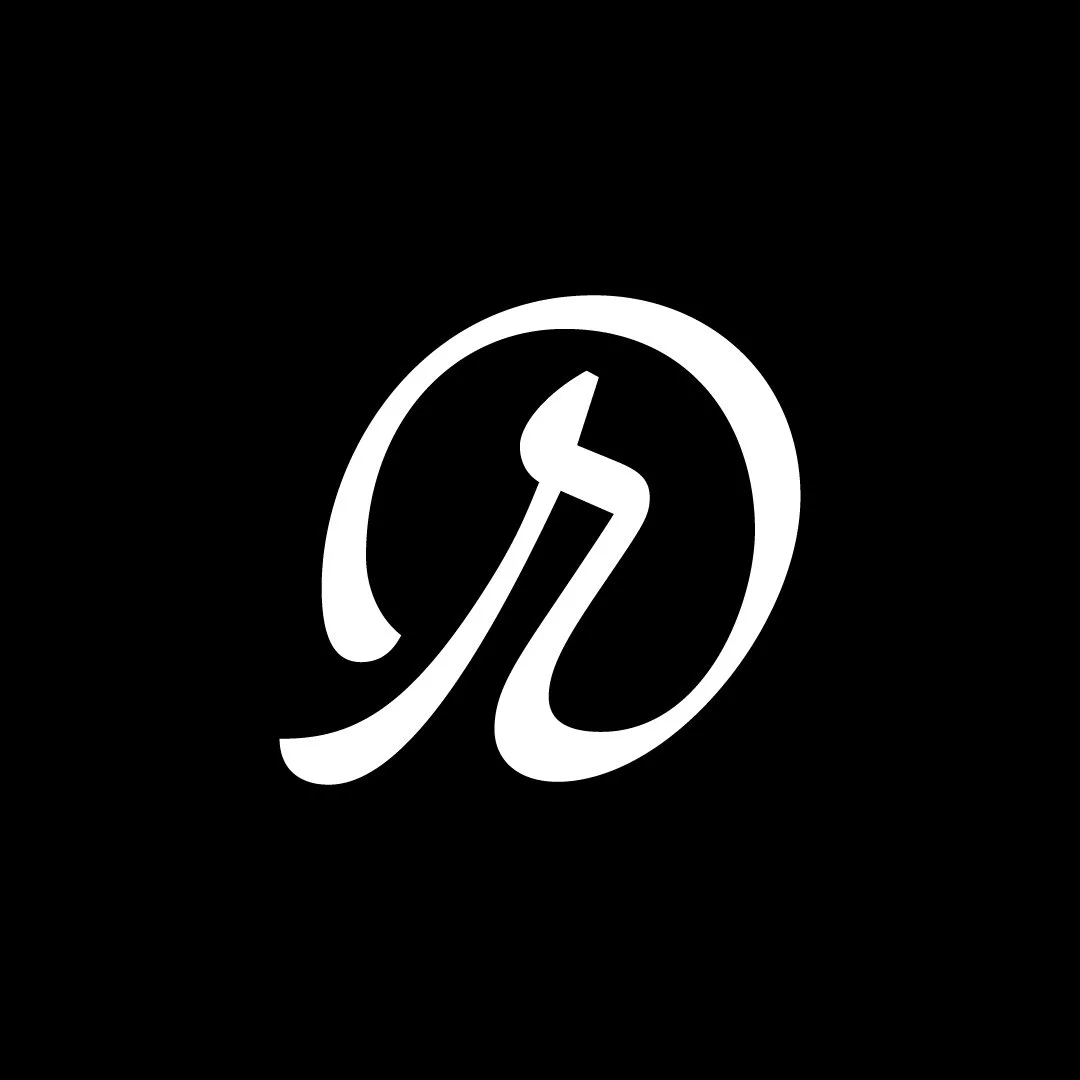
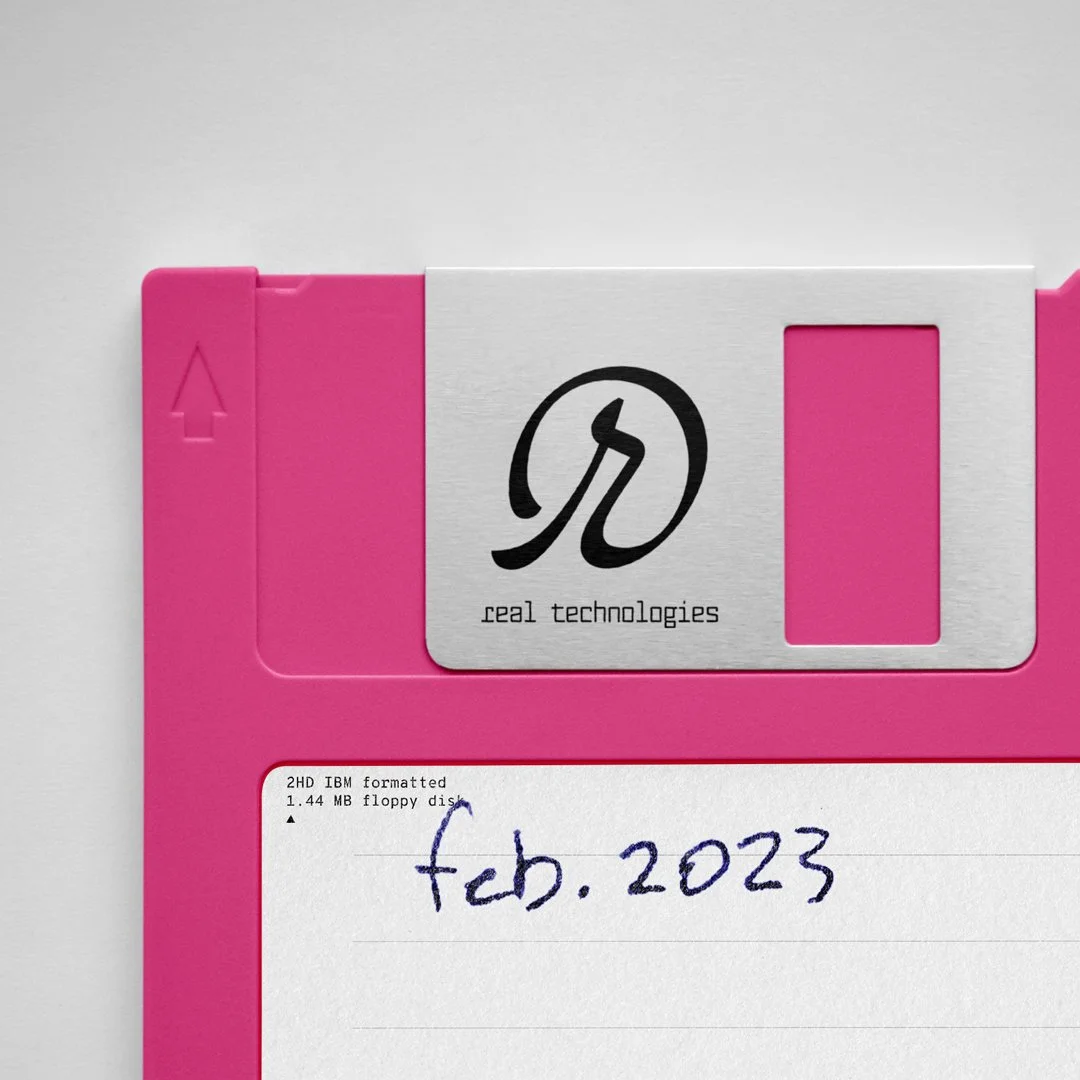
rampersand mark
A lettering-based mark formed by a handwritten cursive letter “r” looping into an oval shape similar to the classic ampersand “@”. Could fit apps, products, startups and businesses in the field of technology, gaming, crypto, software, etc.